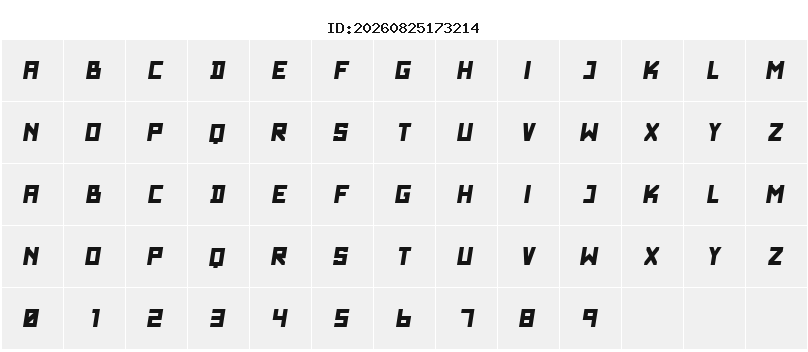
• Font Name: SF WADIM GIANT
• Font Style: ITALIC
• Full Font Name: SF WADIM GIANT ITALIC
• PostScript Name: SFWADIMGIANT-ITALIC
• Character Count: 82
• Designer: Jens Nink
• Manufacturer: Jens Nink - skillforum.org
About SF WADIM GIANT.ttf
SF WADIM GIANT.ttf is a modern, elegant sans-serif font designed for ultimate readability and visual harmony. Perfect for branding, headlines, web design, and print materials.